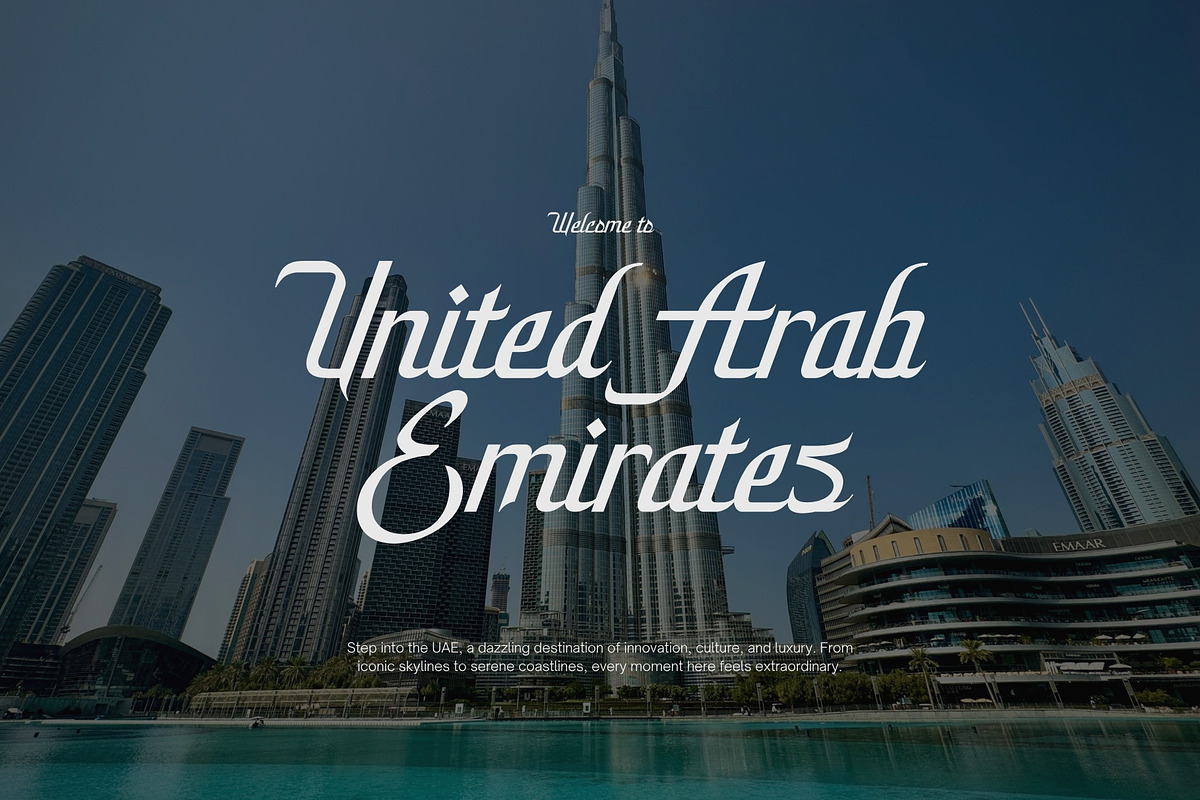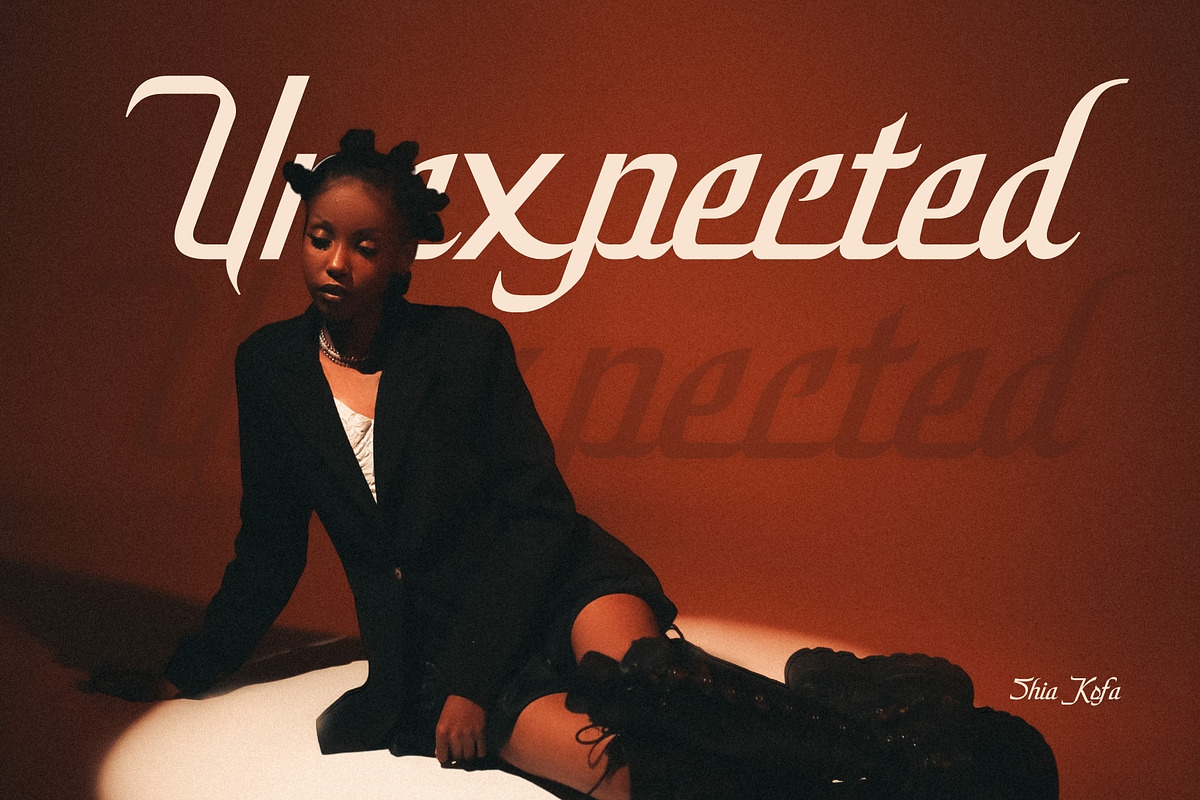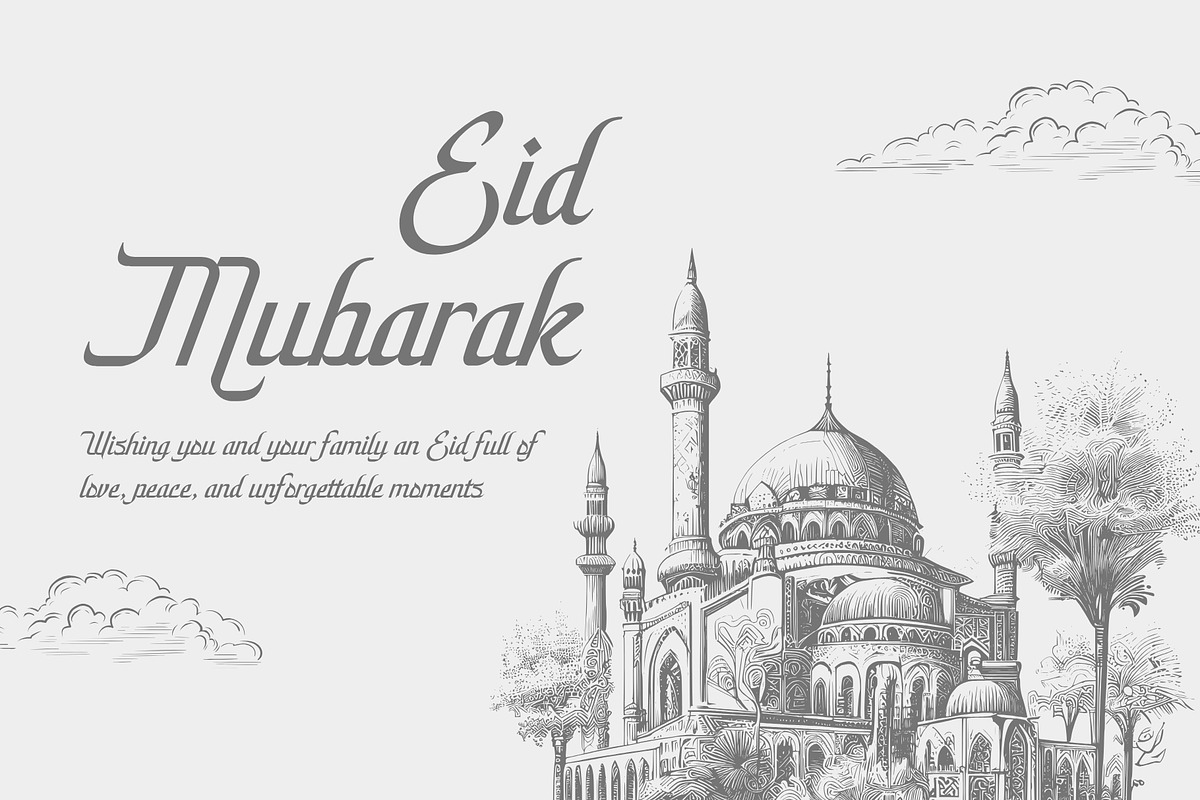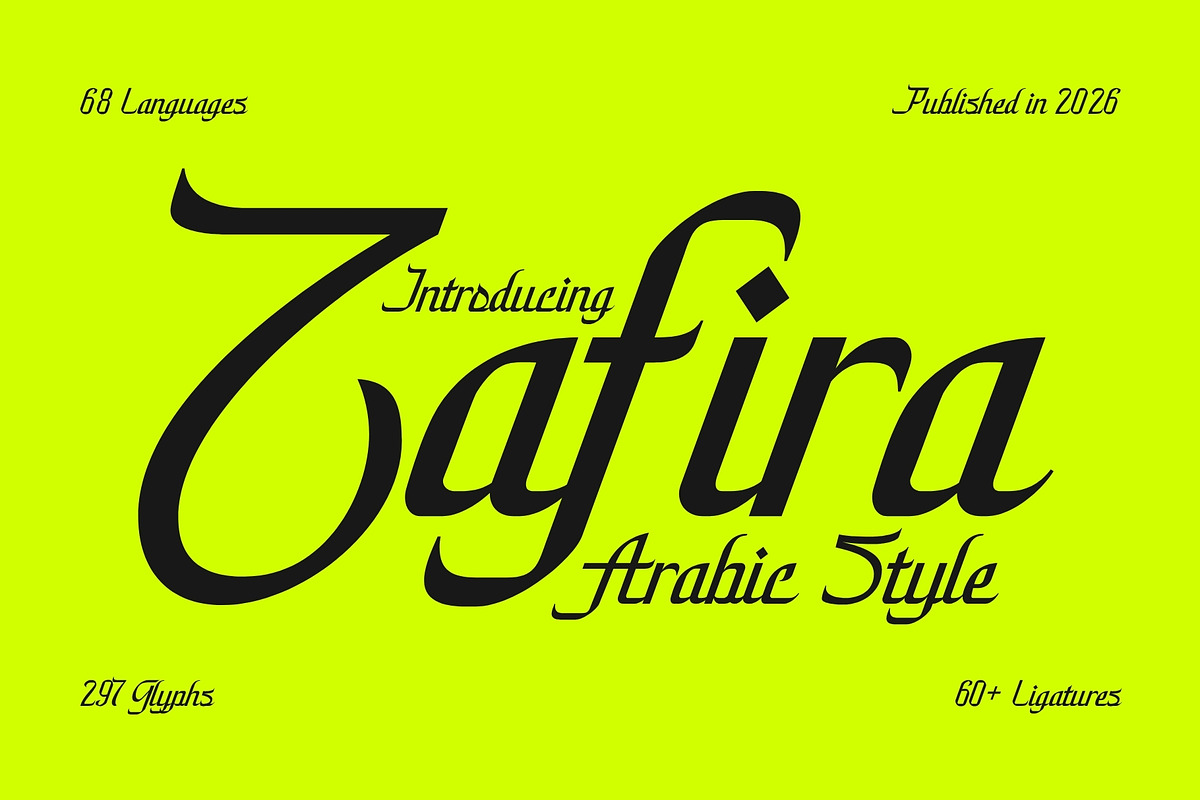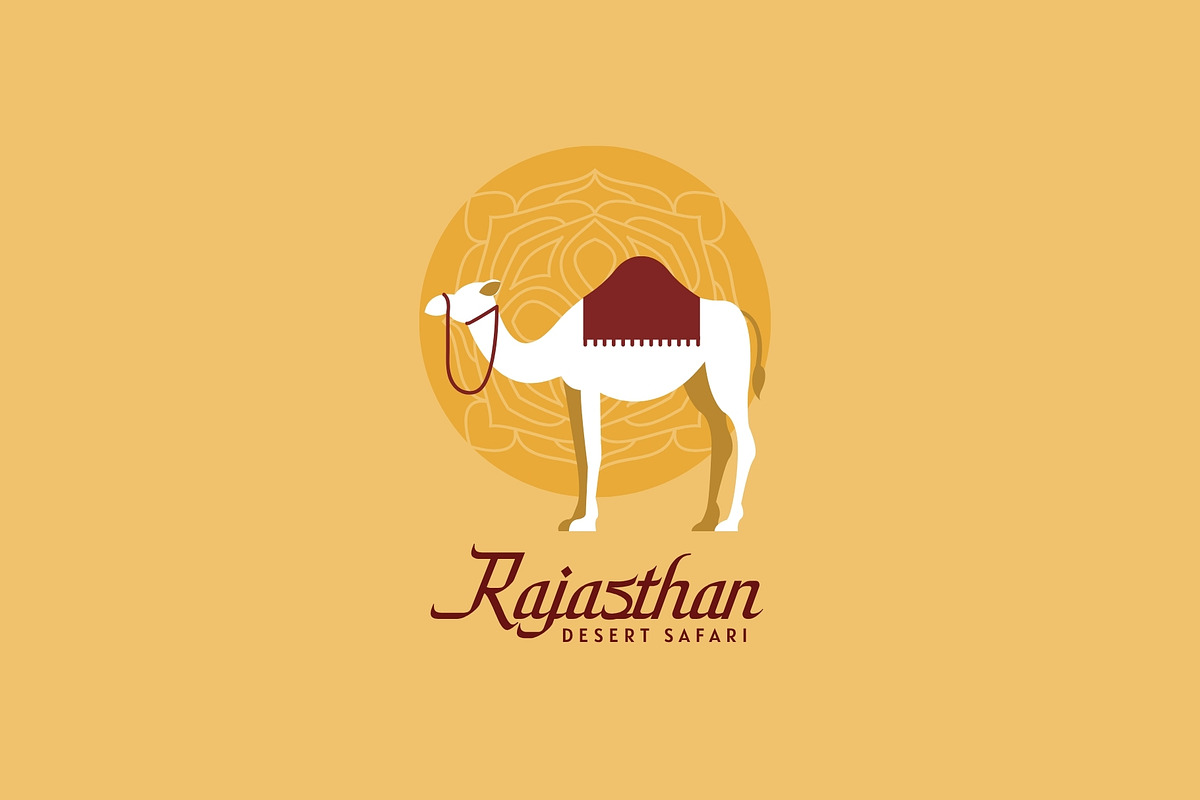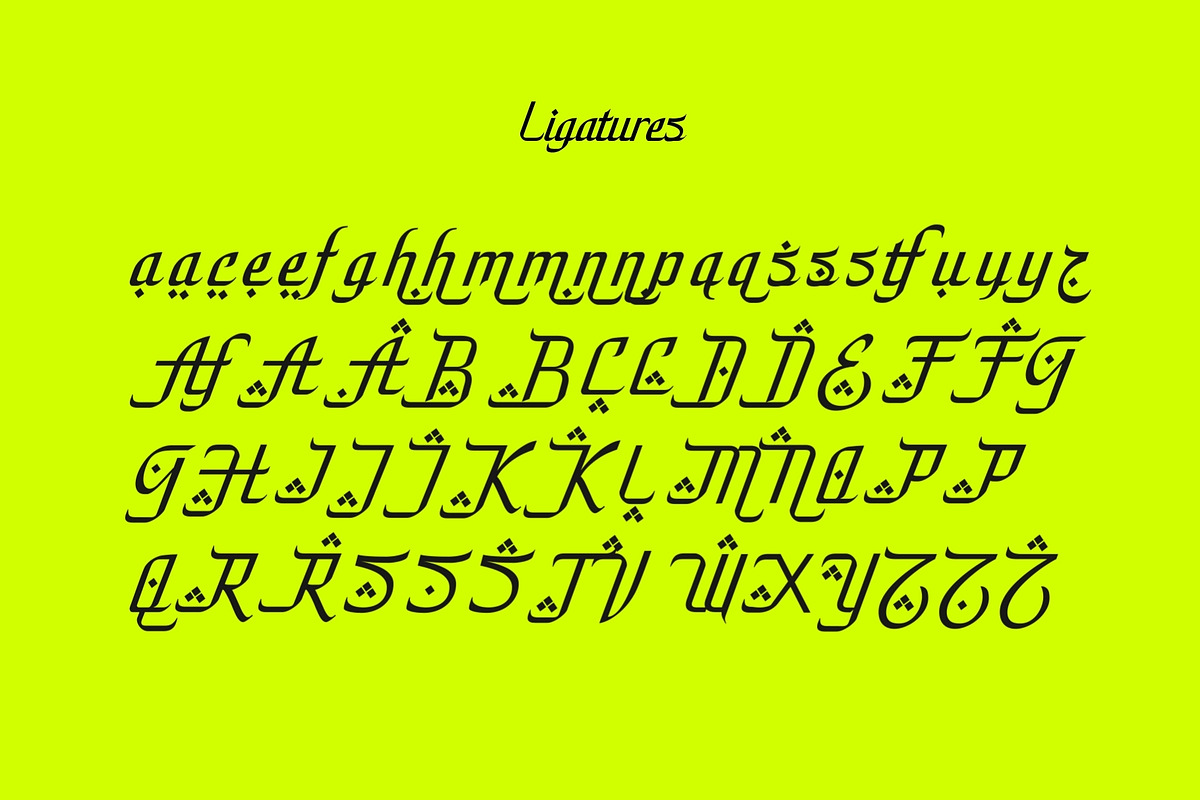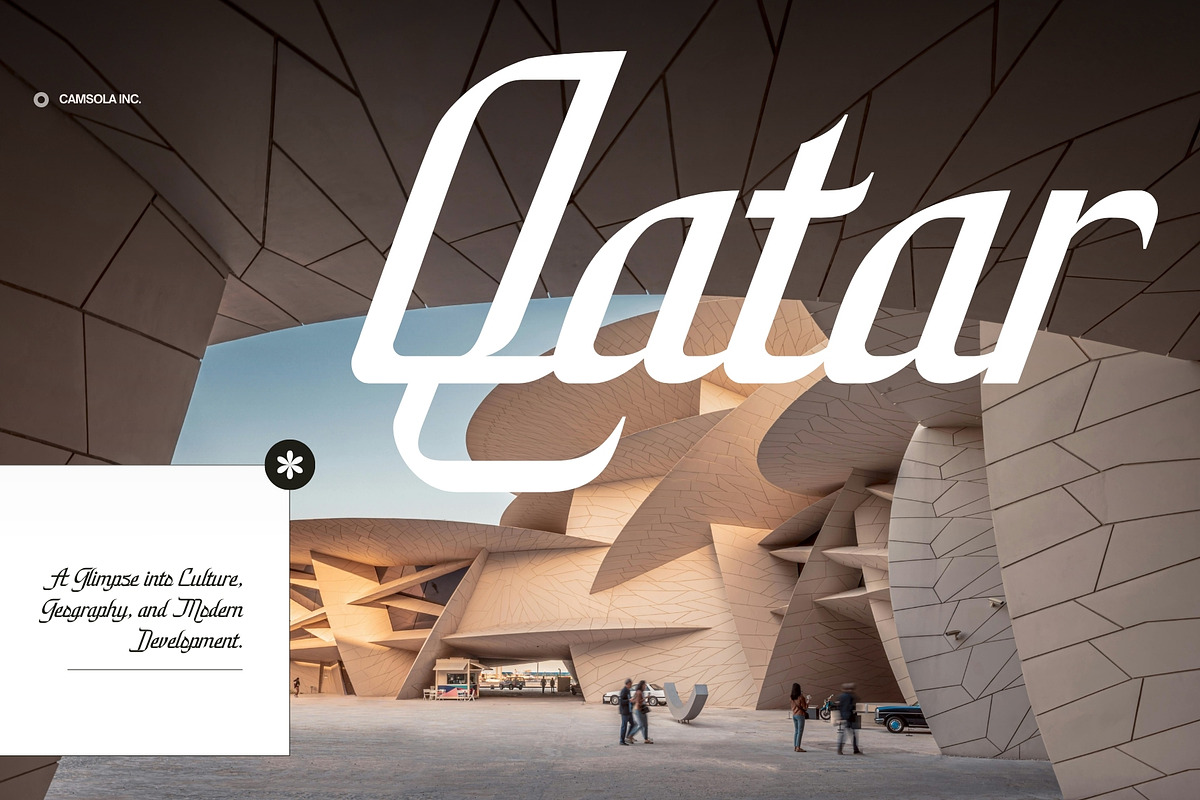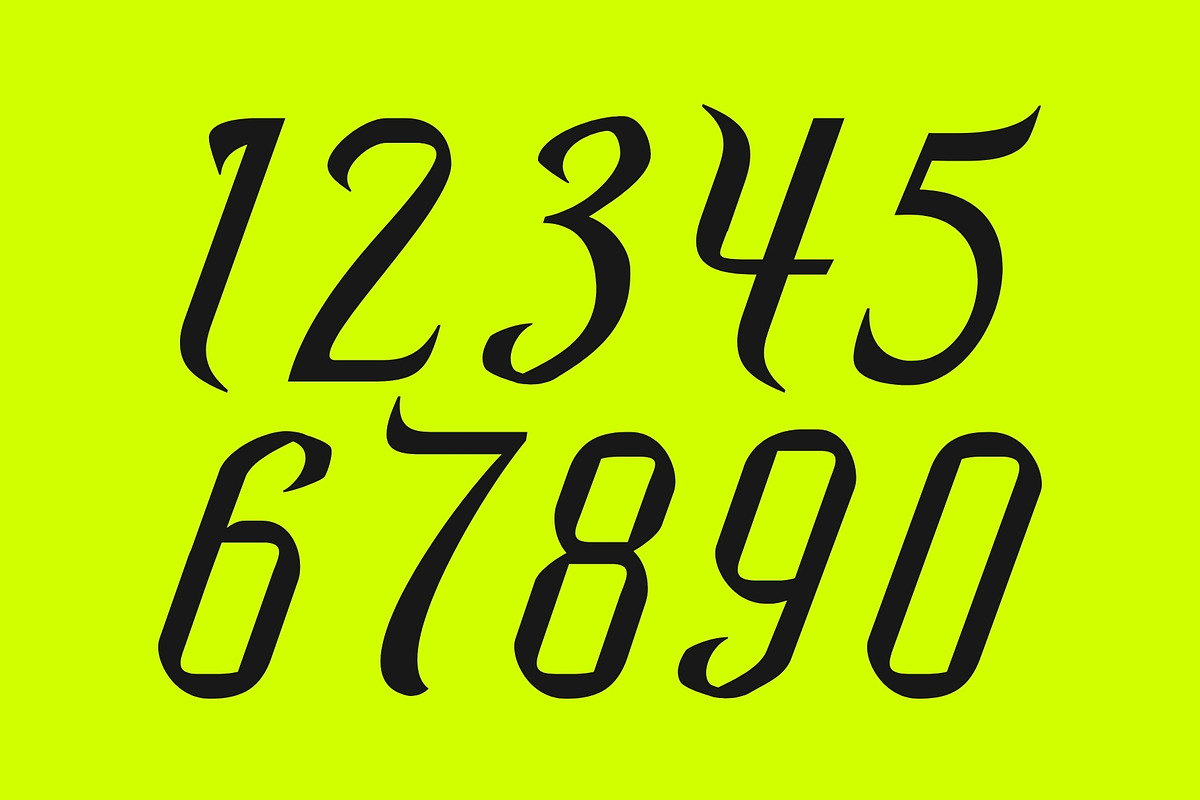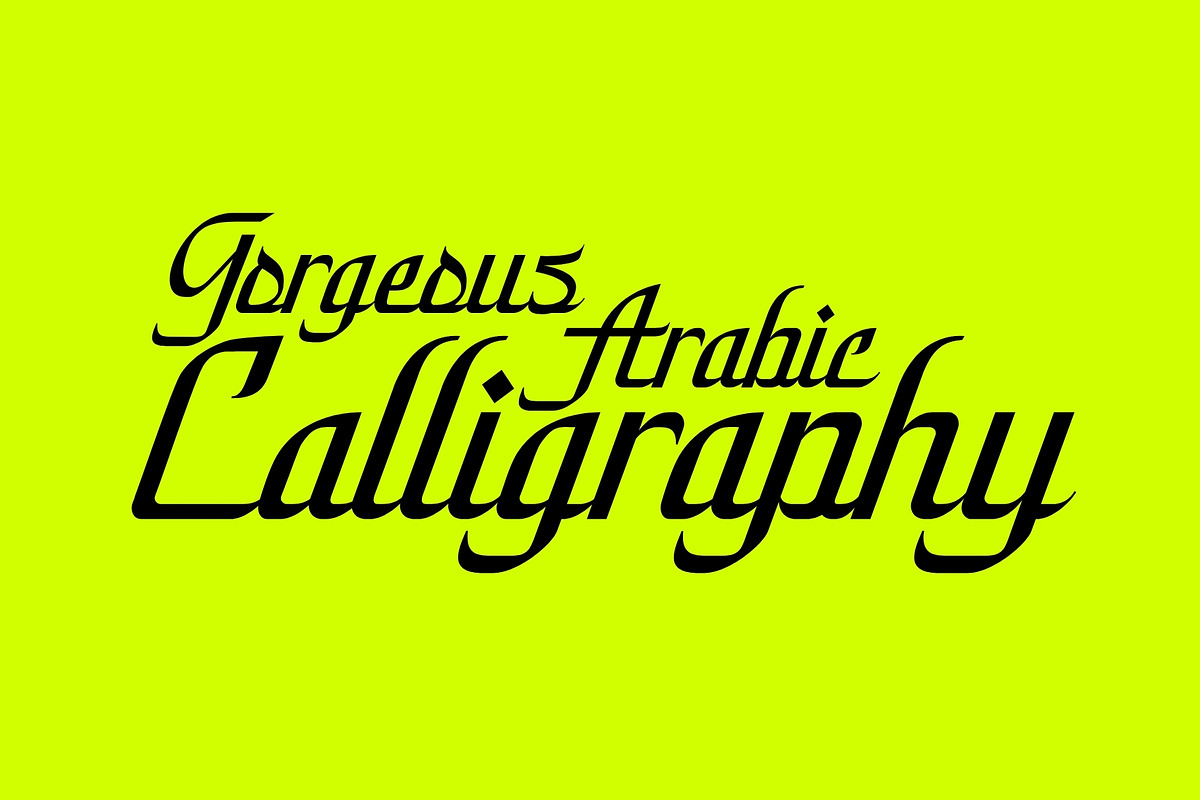
Zafira - Arabic Style Typeface
Zafira is an exquisite Arabic-inspired calligraphy typeface crafted with elegance, artistry, and cultural depth. Combining traditional Middle Eastern calligraphic beauty with modern typographic refinement, Zafira brings a touch of sophistication to every project.
Featuring 60+ beautifully designed ligatures and unique stylistic alternates, Zafira captures the flowing rhythm of Arabic handwriting while remaining highly usable for global audiences. Its smooth curves, fluid transitions, and ornamental character shapes make it a perfect balance of authenticity and contemporary design flair.
Zafira supports 68 languages, making it a versatile and inclusive typeface for creators around the world. Its graceful letterforms work seamlessly in both large display settings and smaller text applications.
Whether you're designing luxury branding, wedding invitations, product packaging, editorial layouts, or cultural creative projects, Zafira elevates your work with richness, charm, and artistic warmth.
Zafira is not just a font—it’s a celebration of calligraphy, tradition, and modern craftsmanship.